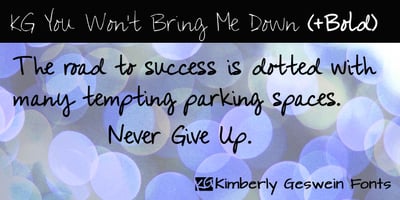
KG You Wont Bring Me Down
KG You Wont Bring Me Down font
KG You Wont Bring Me Down Font Family was designed by Kimberly Geswein and published by Kimberly Geswein. KG You Wont Bring Me Down contains 2 styles and family package options. This handwriting has a fun style with connected letters and a slightly girly flair.